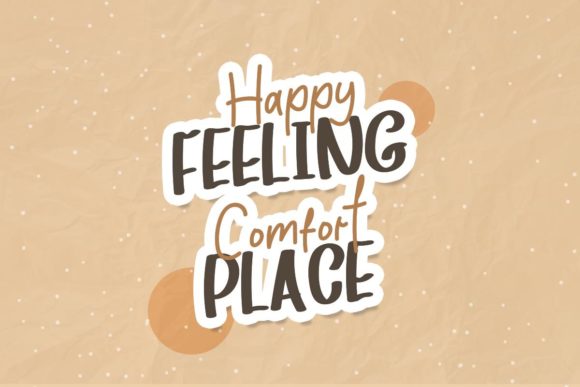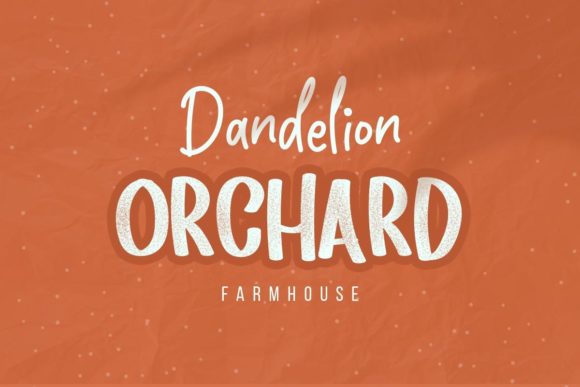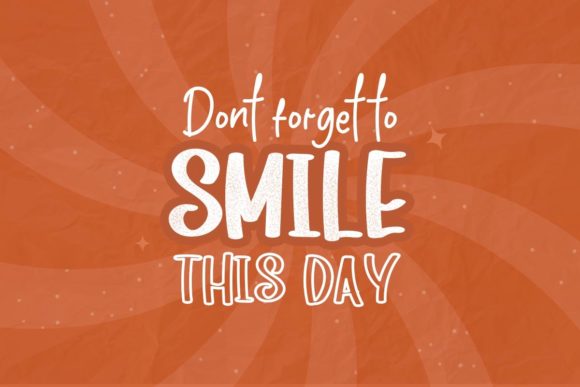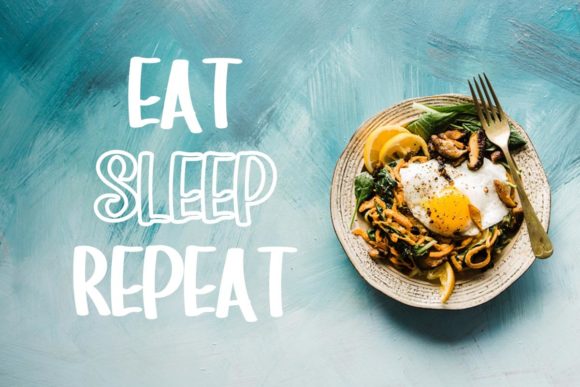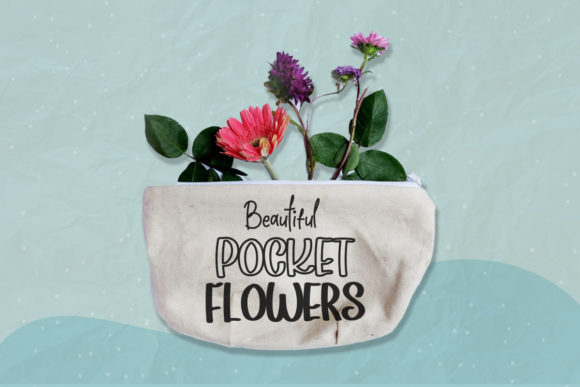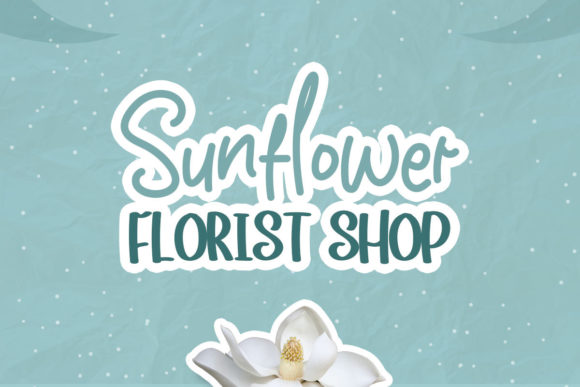
Introducing Go to Farmhouse Font: The Perfect Addition to Your Design Projects
Are you a designer or crafter looking for a unique and charming font to elevate your projects? Look no further than Go to Farmhouse Font, a delightful duo font that combines a handwritten and display font to add a fun and happy spark to any design.
What is Go to Farmhouse Font?
Go to Farmhouse Font is a carefully crafted font duo that consists of a beautiful handwritten font and a stunning display font. This versatile font combination is suitable for a wide range of projects, including content design for Instagram, logo design, branding design, Cricut craft, accessories, decorations, and more.
Key Features of Go to Farmhouse Font
- Handwritten and Display Font Combination: The duo font combination offers the best of both worlds, allowing you to add a personal touch to your designs with the handwritten font and make a bold statement with the display font.
- Charming and Unique: Go to Farmhouse Font boasts a charming and unique style that will set your designs apart from the rest.
- Easy to Read and Use: The font is carefully crafted to be easy to read and use, making it perfect for designers and crafters of all skill levels.
Go to Farmhouse Font is an excellent choice for designers and crafters who want to add a touch of personality to their projects. Whether you’re creating content for Instagram, designing logos, or crafting decorations, this font duo has got you covered.
Instagram Content Design
With Go to Farmhouse Font, you can create stunning Instagram content that will engage your followers and make your feed stand out. Use the handwritten font to add a personal touch to your captions and the display font to create eye-catching graphics.
Logo Design and Branding
Go to Farmhouse Font is perfect for logo design and branding projects. The unique and charming style of the font will help you create a memorable brand identity that will leave a lasting impression on your customers.
Cricut Craft and DIY Projects
Cricut crafters and DIY enthusiasts will love Go to Farmhouse Font for their projects. Use the font to create custom vinyl signs, iron-on designs, and paper crafts that will add a touch of personality to your home decor.